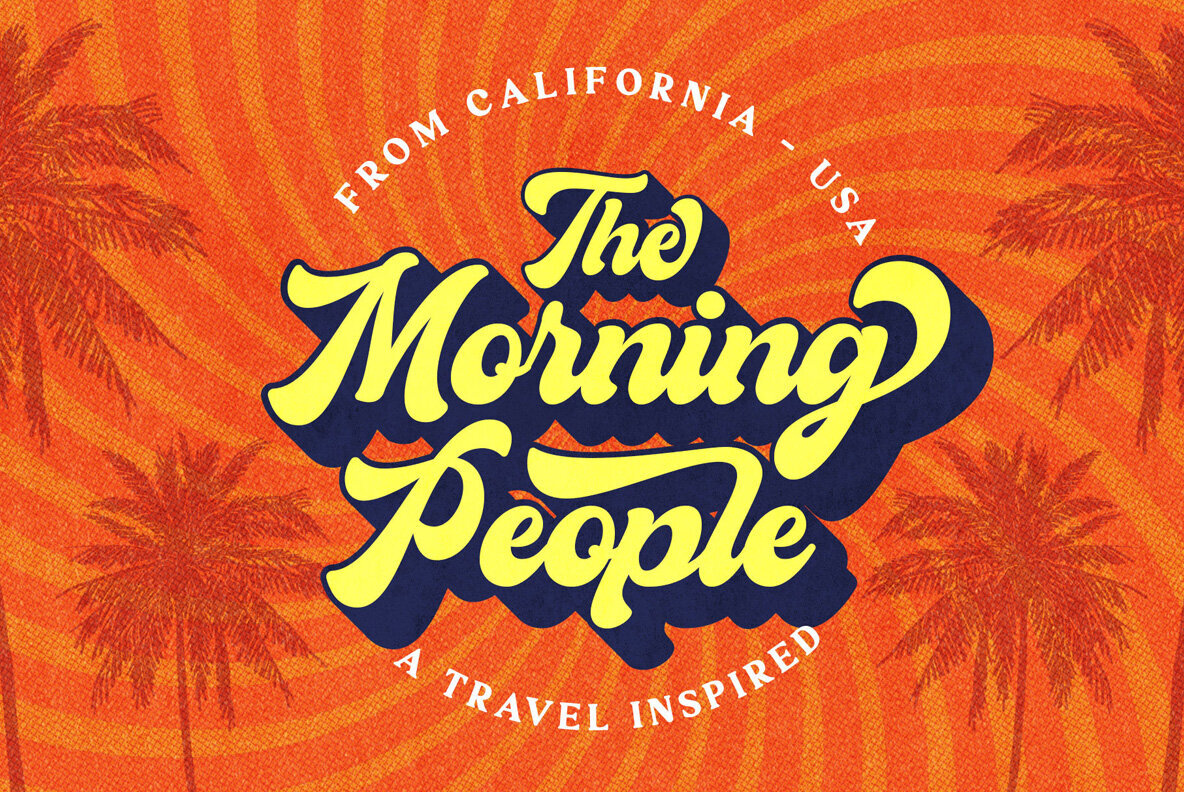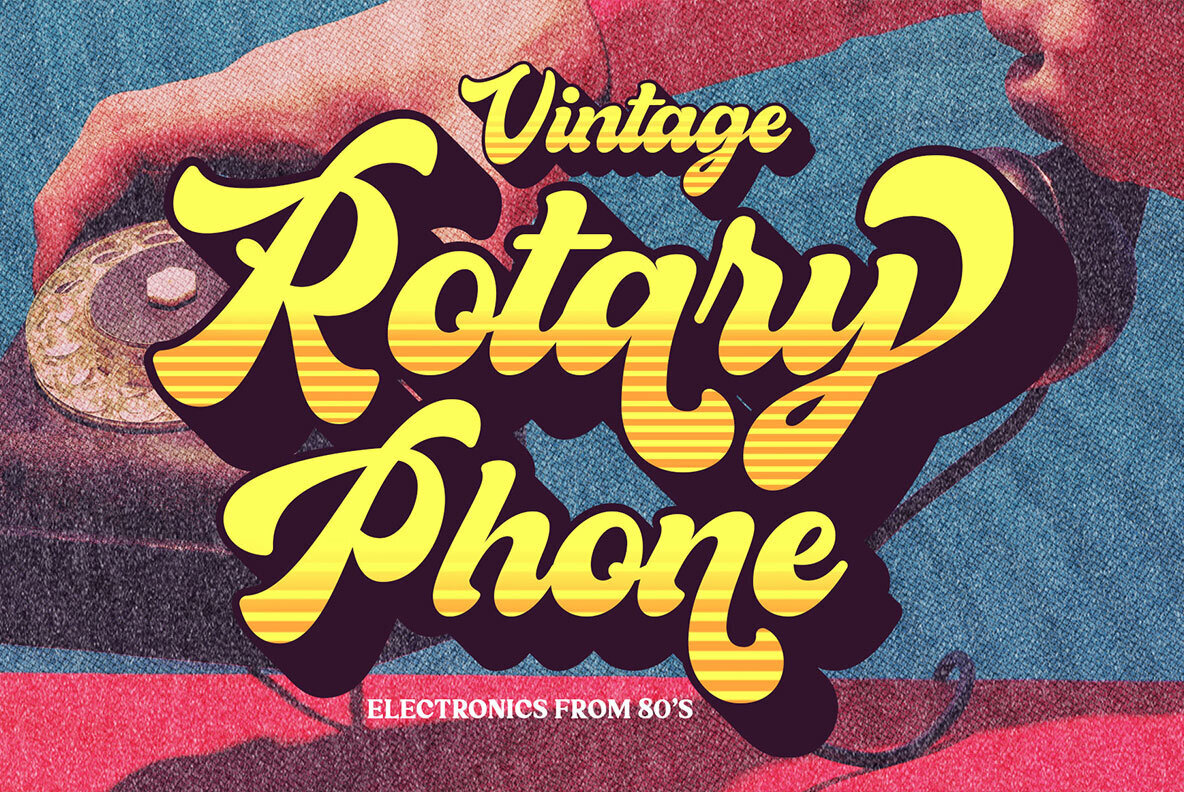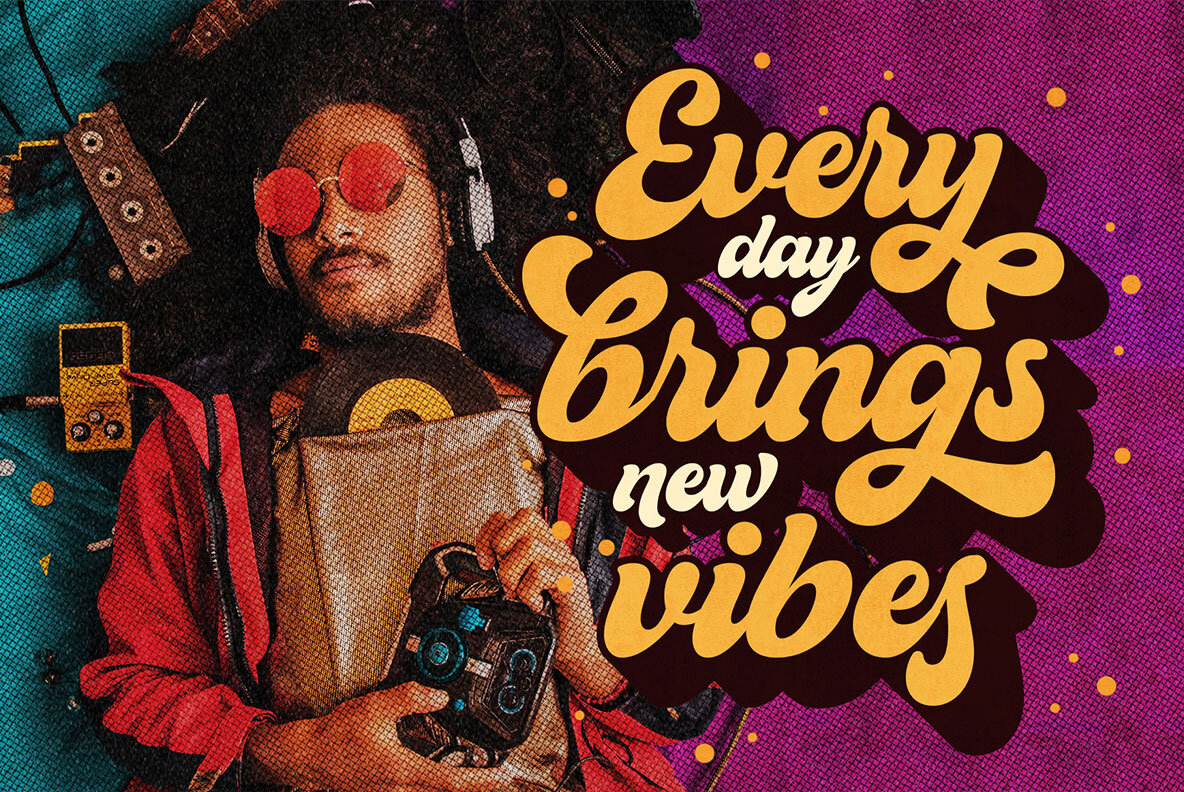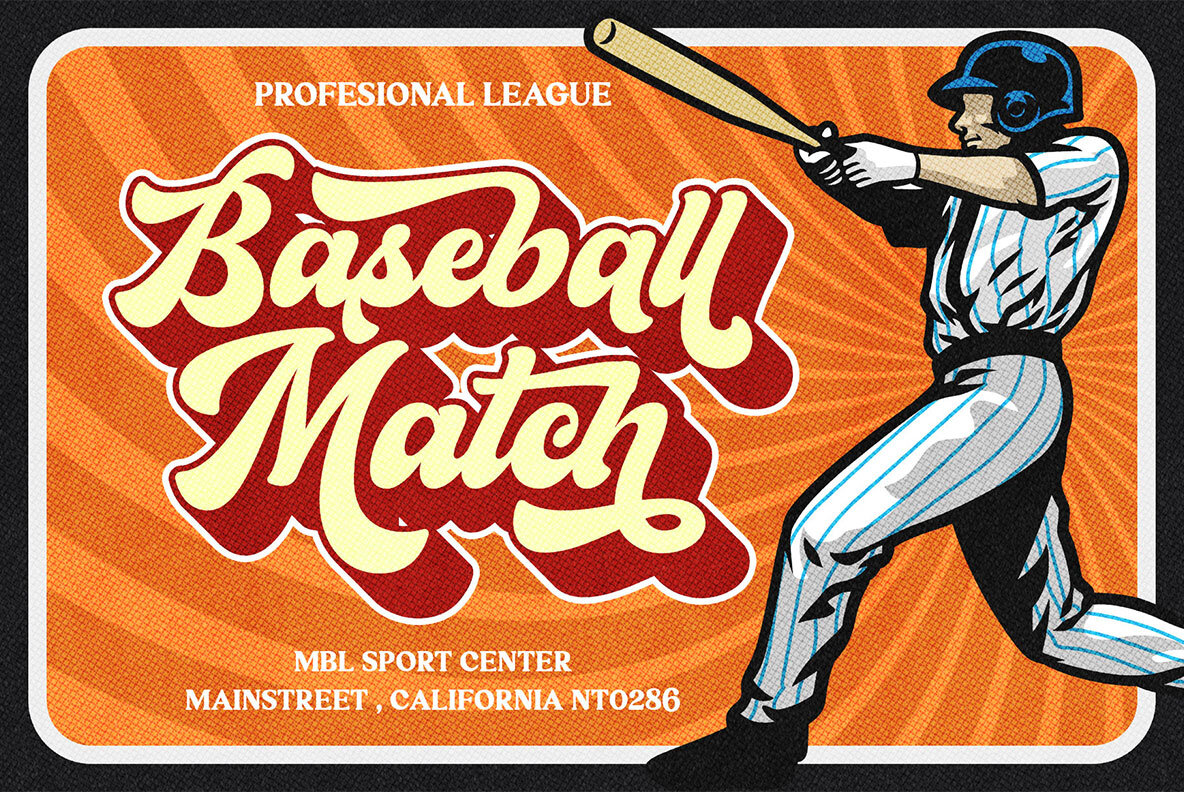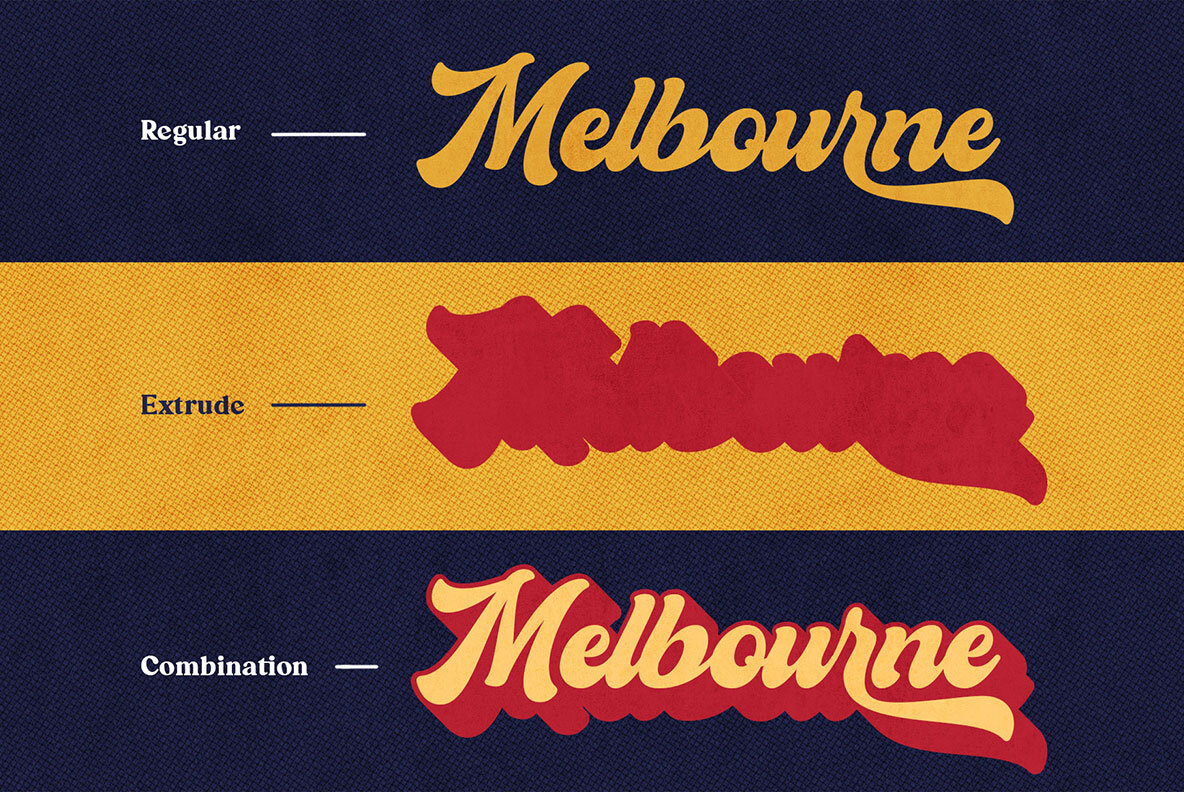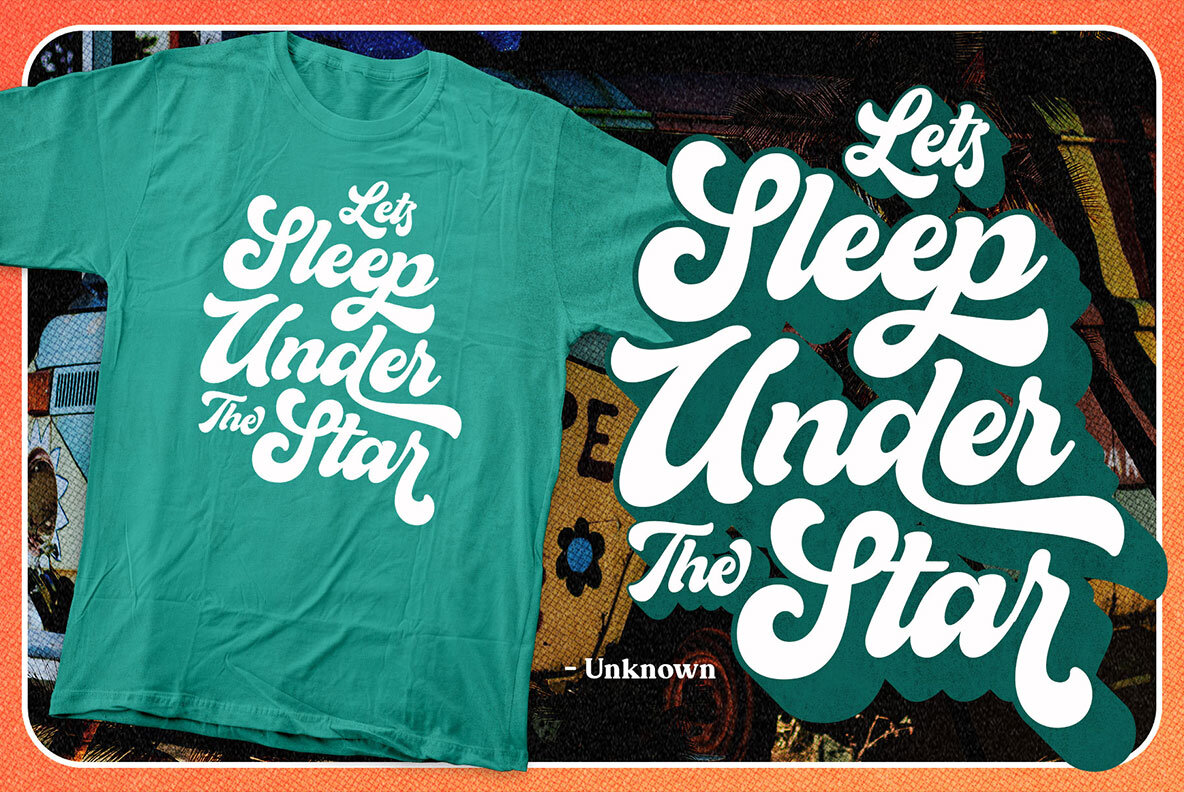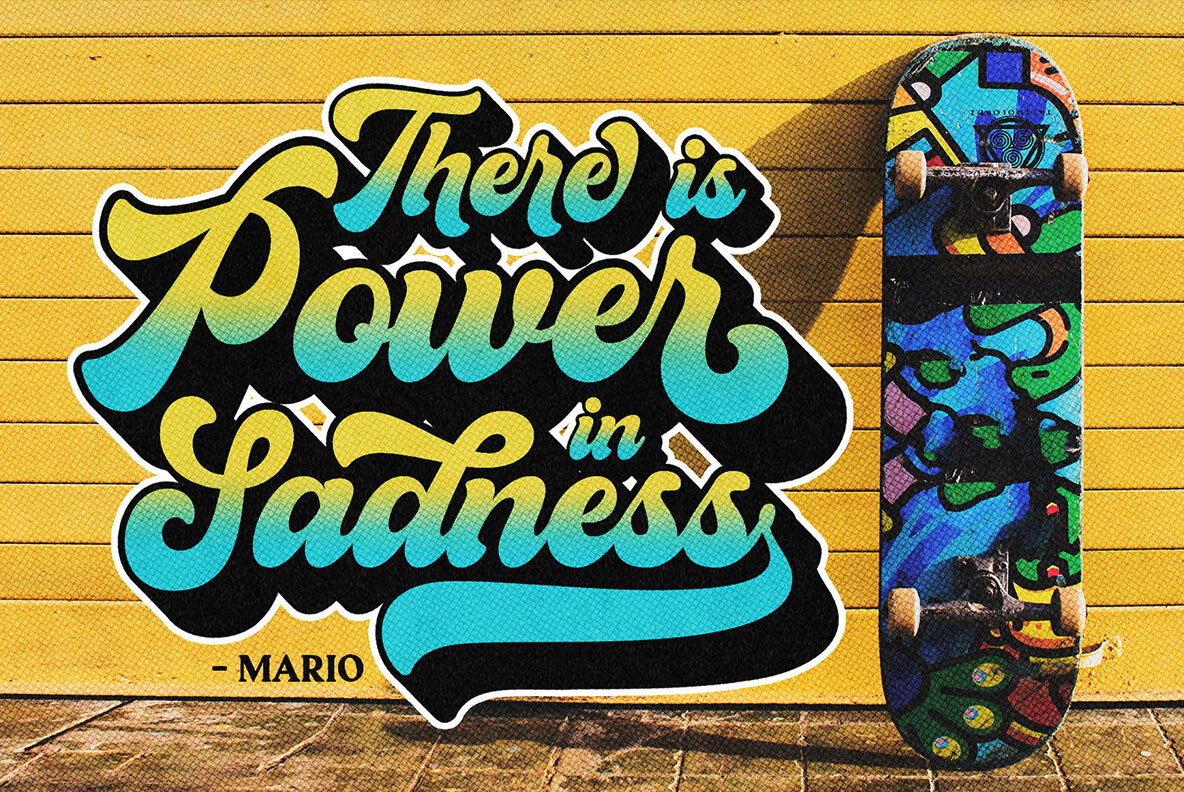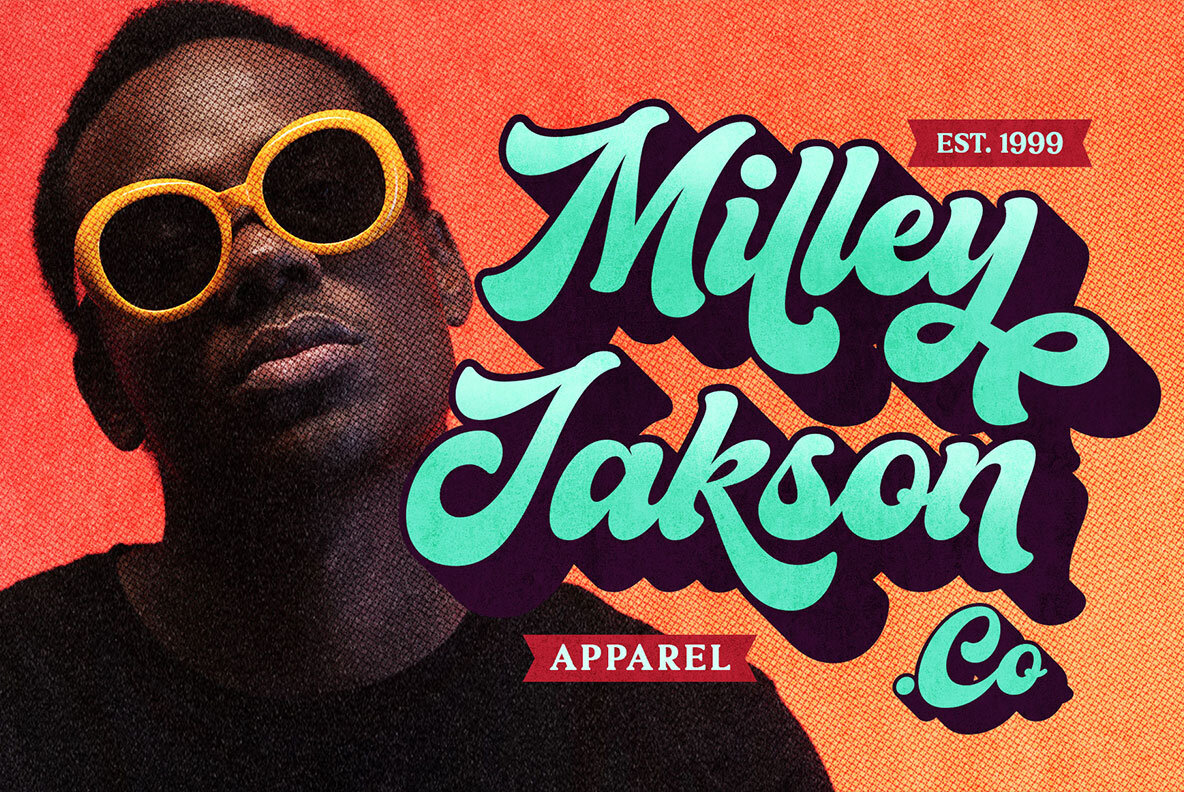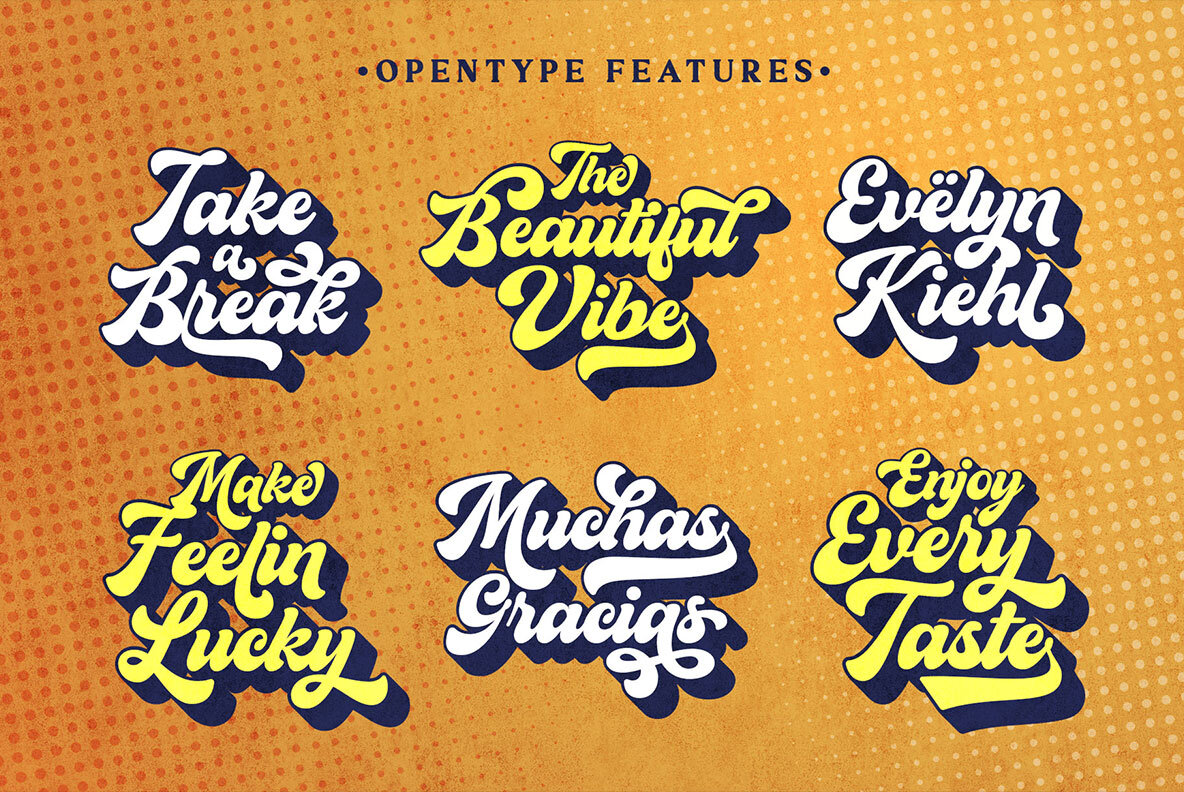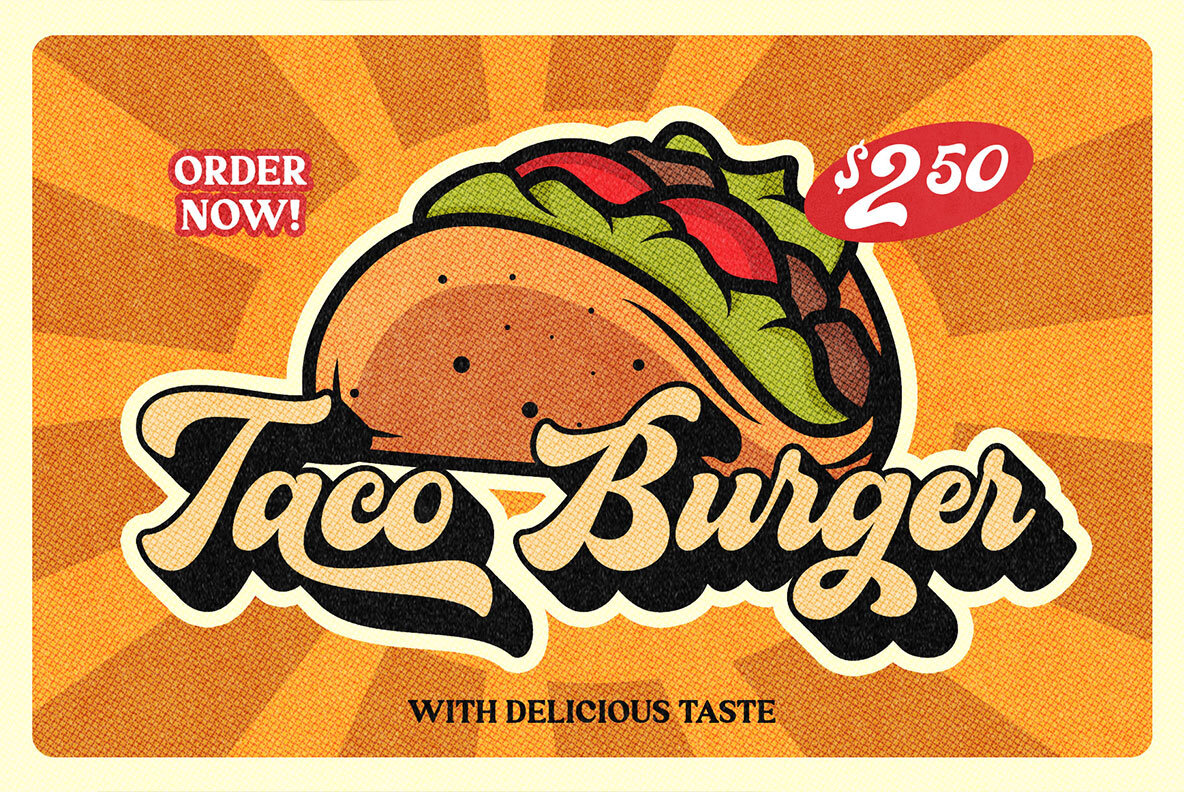
The Buntank Font
The Buntank offers a delightful nod to retro typography, meticulously designed with bold, rounded forms that capture the essence of vintage appeal. This font effortlessly evokes the charm of yesteryear, making it ideal for creating captivating posters, logos, and signage. The extruded style of The Buntank allows for easy creation of 3D typography, adding depth to your designs. With over 500 glyphs including decorative swashes, it provides ample opportunity for customization and creativity. Features: The Buntank is an excellent choice for various applications such as merchandise, logos, flyers, decals, storefronts, and motion graphics. Elevate your projects with this beautifully crafted font.The Buntank: A Retro Script Font with Charm